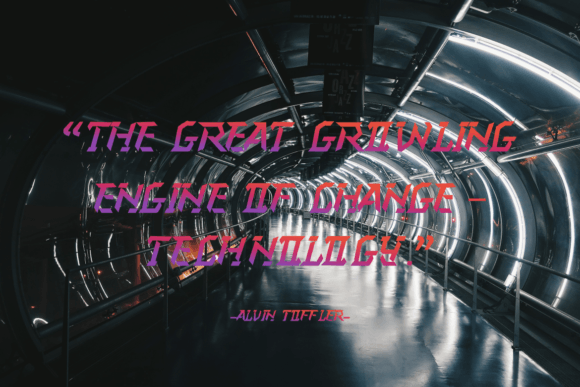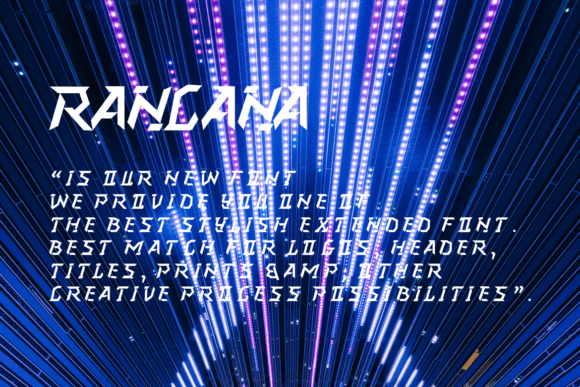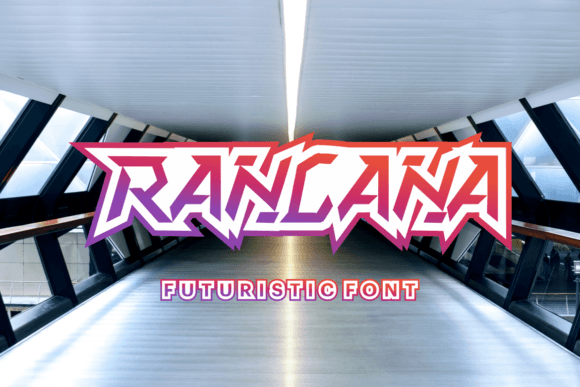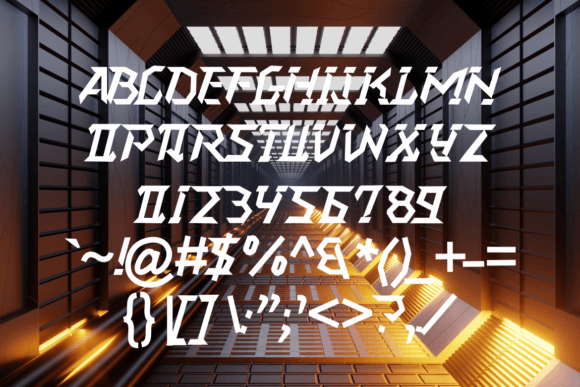
Discover the Power of Rancana Font
As designers, we’ve all been there – staring at a blank canvas, trying to bring our creative vision to life. The perfect font can make all the difference, elevating our designs from mere mortal creations to something truly extraordinary. That’s where Rancana Font comes in – a futuristic, high-quality font designed to give your creative projects that extra oomph.
With its sleek, sharp lines and wide range of characters, Rancana Font is the perfect design resource for any project. Whether you’re working on a poster, brochure, or website, this versatile font is sure to make your designs stand out. And with its transparent background, you can easily integrate it into any design without worrying about distractions. The best part? It’s available for free download, making it an invaluable asset for designers of all levels.
Key Features of Rancana Font
- Comes in a single size, making it versatile for use in a range of creative projects, from logos to typography.
- Designed with a focus on readability, ensuring clear and legible text even at high resolutions.
Honest Review: Rancana Font
As a designer, I’m always on the lookout for high-quality design resources to elevate my creative projects. The Rancana Font is one such resource that caught my attention recently.
- ✨ Unique and elegant design that adds a touch of sophistication to any project
- ✨ Smooth and seamless font strokes, making it perfect for both digital and print media
- ✨ High-quality and transparent background, allowing for easy layering and manipulation
- ⚠️ Limited character set and language support, which may be a concern for designers working on international projects
- ⚠️ Not suitable for very large font sizes, as it may lose its elegance and become difficult to read
Overall, I’m impressed with the Rancana Font’s design and functionality. While it may have some limitations, it’s a great resource for designers looking to add a touch of sophistication to their creative projects. I would definitely recommend it for personal projects or small-scale commercial work.
Rancana Font
Introduction to Rancana Font
Rancana Font is a high-quality design resource that offers a unique and creative font perfect for various projects. With a transparent background, this font can be easily integrated into any design.
Using Rancana Font in Design
Tips for Getting the Most Out of Rancana Font
To maximize the potential of Rancana Font, experiment with different font sizes, colors, and combinations to create unique and eye-catching designs.
Common Use Cases for Rancana Font
Rancana Font is perfect for creative projects, including graphic design, digital art, and typography-based designs. It’s also suitable for presentations, reports, and documents that require a touch of creativity.
Can I use the Rancana Font on a transparent background?
Yes, the Rancana Font has a transparent background, making it perfect for use on digital products, such as website headers, social media graphics, or mobile app interfaces. Simply place the font on top of your design element, and the transparent background will allow the underlying design to show through.